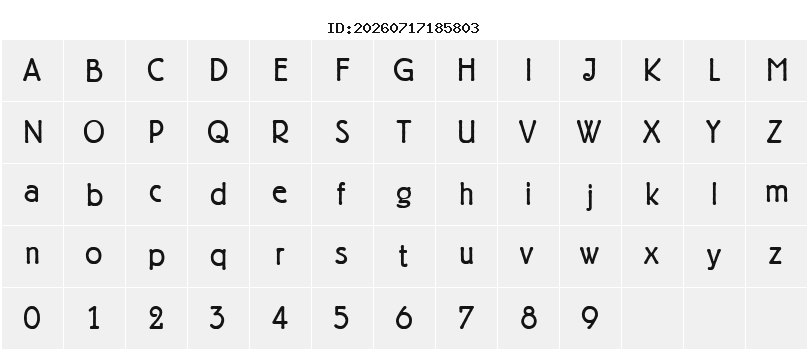
Berliner Grotesk Preview
• Font Name: Berliner Grotesk
• Full Font Name: Berliner Grotesk Light
About Berliner Grotesk.ttf
Berliner Grotesk.ttf is a modern, elegant sans-serif font designed for ultimate readability and visual harmony. Perfect for branding, headlines, web design, and print materials.